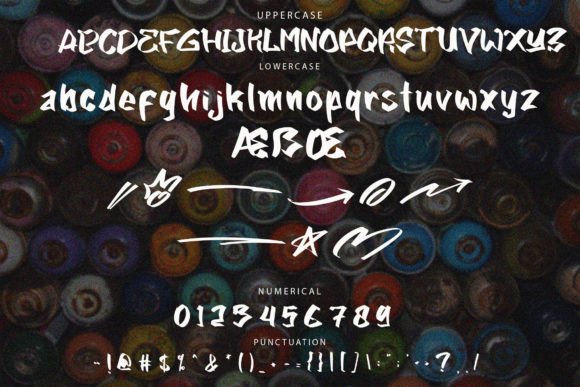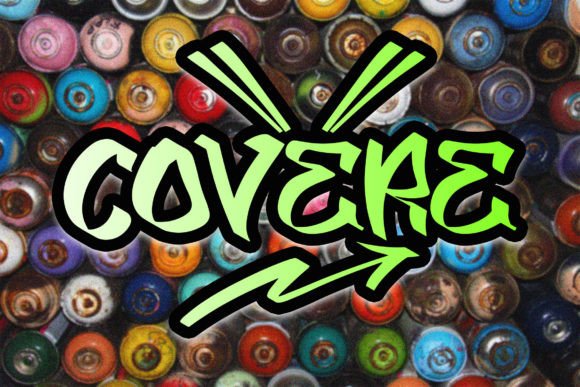
Unleash Your Creativity with COVERE – Bold Handbrush Graffiti Font
In the world of design, fonts play a crucial role in conveying messages and setting the tone for your creative projects. If you’re looking for a font that adds a bold, edgy, and creative touch to your designs, look no further than COVERE – a dynamic graffiti font with a bold handbrush style. In this article, we’ll dive into the unique features of COVERE and explore how it can elevate your designs, making them more eye-catching and impactful.
What is COVERE Font?
COVERE is a uniquely crafted graffiti font that boasts a bold handbrush style, perfect for designers and crafters seeking to add a street art-inspired flair to their work. This font is not just a simple collection of characters; it’s a tool that can transform your designs, giving them a vibrant and energetic feel. Whether you’re working on street art-inspired projects, posters, branding, or any other creative endeavor, COVERE is designed to make your graphics stand out.
Key Features of COVERE Font
- Bold Handbrush Style: COVERE’s bold handbrush style gives it a unique and authentic graffiti look, making it perfect for designs that require a strong visual impact.
- Uniquely Crafted Characters: Each character in COVERE is carefully crafted to ensure that your designs have a distinctive and original look.
- Dynamic and Versatile: COVERE is not limited to a specific type of project. Its versatility makes it suitable for a wide range of applications, from street art and posters to branding and packaging.
- Easy to Use: Despite its professional and intricate design, COVERE is easy to use, even for those who are new to working with unique fonts.
Applications of COVERE Font
COVERE’s versatility means it can be used in a variety of projects, including:
- Street Art-Inspired Projects: Add an authentic graffiti touch to your street art, murals, or any project that requires a bold and urban feel.
- Posters and Flyers: Make your posters and flyers stand out with COVERE’s dynamic and eye-catching style.
- Branding and Logo Design: Use COVERE to create unique and memorable logos or to add a creative touch to your brand’s visual identity.
- Social Media Graphics: Elevate your social media presence with engaging and impactful graphics created using COVERE.
Tips for Using COVERE Font Effectively
To get the most out of COVERE, consider the following tips:
- Experiment with Colors: COVERE’s bold style pairs well with vibrant colors. Experiment with different color schemes to find the perfect match for your design.
- Combine with Other Fonts: Don’t be afraid to combine COVERE with other fonts to create contrast and add depth to your designs.
- Play with Sizes: Utilize different sizes of COVERE to create visual hierarchy and emphasize key messages in your designs.
COVERE – Bold Handbrush Graffiti Font is a powerful tool for designers and crafters looking to add a creative and edgy touch to their work. Its bold handbrush style, uniquely crafted characters, and versatility make it an excellent choice for a wide range of projects. By incorporating COVERE into your design toolkit, you’ll be able to create graphics that are not only visually appealing but also memorable and impactful. So, why settle for ordinary when you can make your designs extraordinary with COVERE?
Embrace the bold and dynamic world of graffiti typography with COVERE, and watch your designs transform into eye-catching masterpieces that leave a lasting impression.